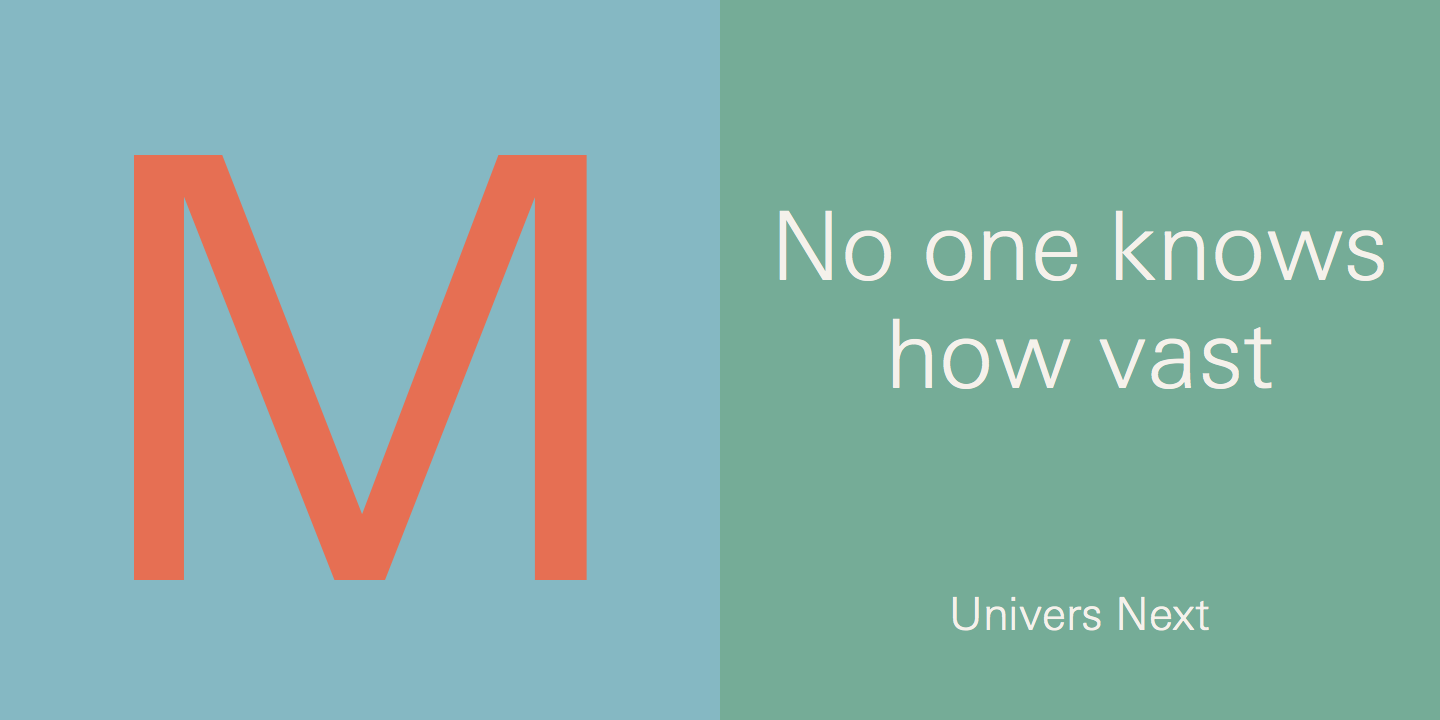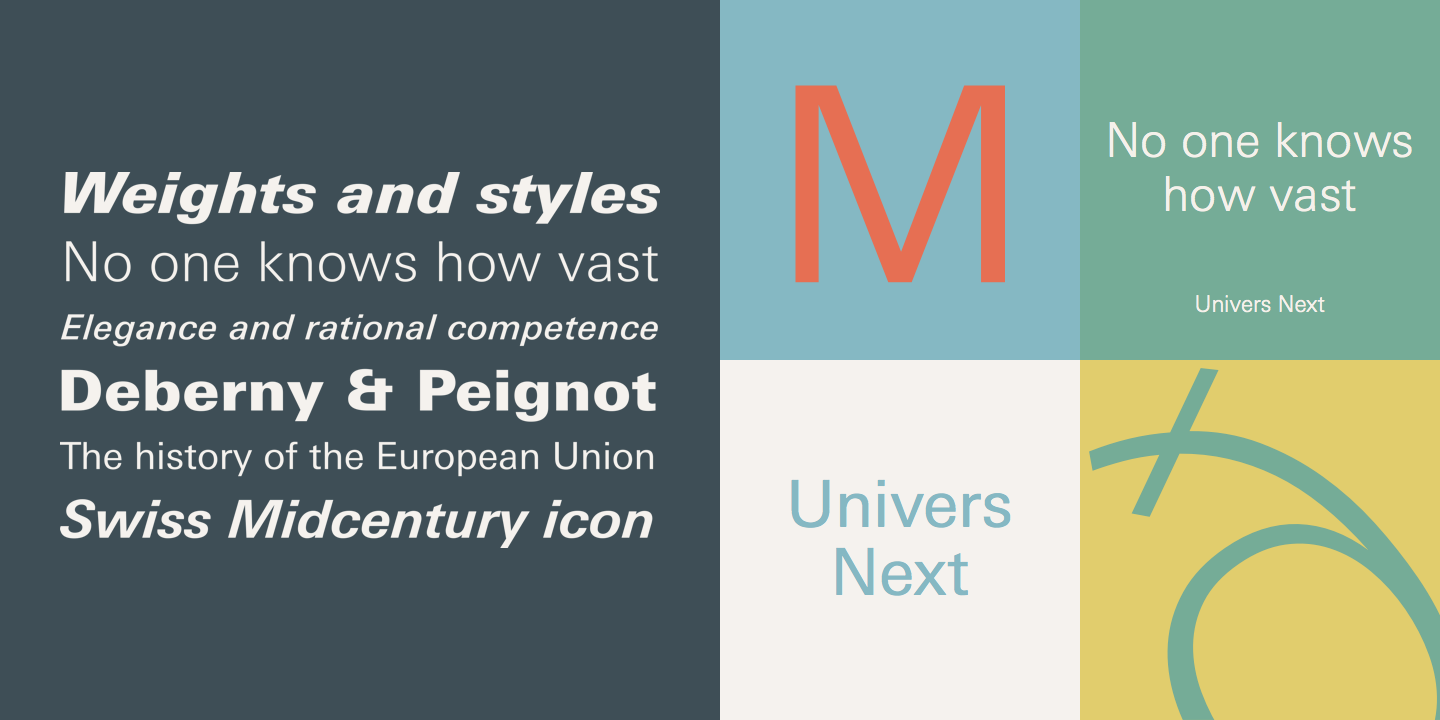
In 1997 Adrian Frutiger and the design staff at Linotype completed the large joint project that resulted in Linotype Univers, a cohesive font family of 63 weights. The existing weights were completely redrawn, making the proportions more consistent and improving fine details such as curves and thick-to-thin stroke ratios. By following Frutiger’s original designs, Univers’s humanist characteristics were underlined.
Linotype Univers was further extended in 2010, and renamed Univers Next to harmonize with the naming of the other type families in Linotype’s prestigious Platinum Collection.